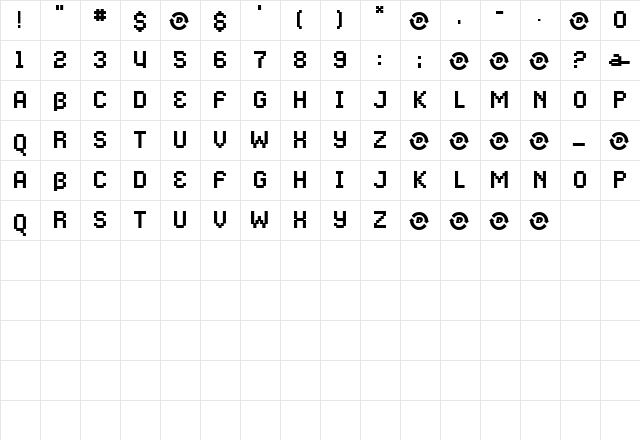
MassiveBlur Regular
Design Context for MassiveBlur Typeface
MassiveBlur takes a measured approach to typography — its balanced proportions and neutral character make it a reliable workhorse for both digital and print work.
Pro Tip: Use MassiveBlur in both headline and body roles to test its range before committing to a single application.